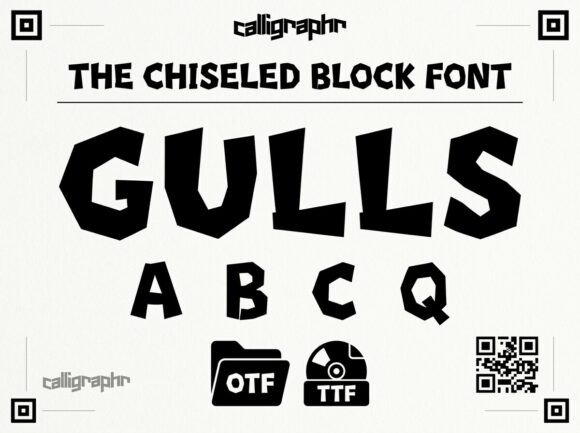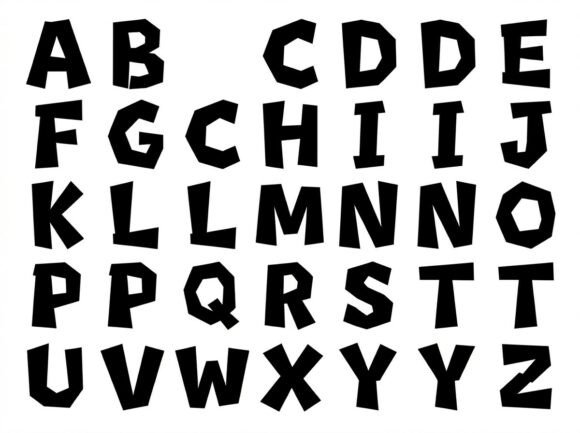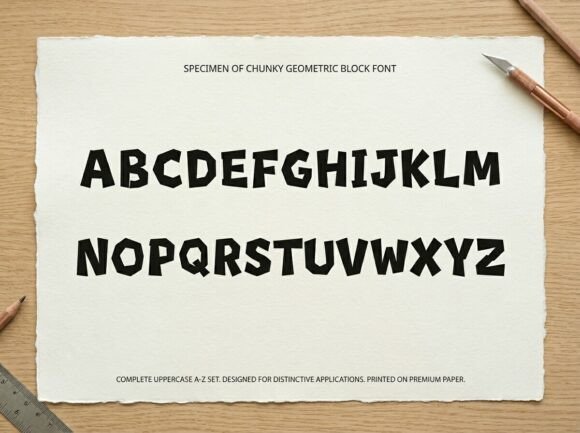
Introducing Gulls Font: A Stunning Decorative Display Font
Are you tired of using the same old fonts for your designs? Do you want to make a statement and stand out from the crowd? Look no further than Gulls Font, a unique and artistic decorative display font that’s sure to turn heads. In this article, we’ll take a closer look at what makes Gulls Font so special and how it can elevate your designs to the next level.
Gulls Font is a stunning decorative display font designed to be the center of attention. With its unique artistic elements and strong visual personality, this font is perfect for creators who want to break away from the ordinary. Whether you’re working on a bold headline, artistic logo, or creative packaging, Gulls Font is the perfect choice. Its versatility and professional finish make it an excellent addition to any design project.
This means that Gulls Font is perfect for designs where you want to make a bold statement, but it’s not suitable for body text or long-form writing. Its unique and artistic design makes it ideal for headlines, titles, and short phrases that need to grab attention.
Why Choose Gulls Font?
So, why should you choose Gulls Font for your design projects? Here are just a few reasons:
- Unique and Artistic Design – Gulls Font features a one-of-a-kind design that’s sure to turn heads.
- Versatility – This font is perfect for a variety of design projects, from bold headlines and artistic logos to creative packaging.
- Professional Finish – Despite its bold and artistic design, Gulls Font maintains a professional and polished finish.
How to Use Gulls Font
- Use it for Headlines and Titles – Gulls Font is perfect for bold headlines and titles that need to grab attention.
- Experiment with Colors and Textures – The unique design of Gulls Font lends itself well to creative color and texture combinations.
- Pair it with Other Fonts – Try pairing Gulls Font with other fonts to create interesting and dynamic typography.
In conclusion, Gulls Font is a stunning decorative display font that’s perfect for creators who want to make a statement. With its unique artistic elements, strong visual personality, and versatility, this font is sure to elevate your designs to the next level. Whether you’re working on a bold headline, artistic logo, or creative packaging, Gulls Font is the perfect choice. So why wait? Purchase Gulls Font today and start creating stunning designs that demand attention.